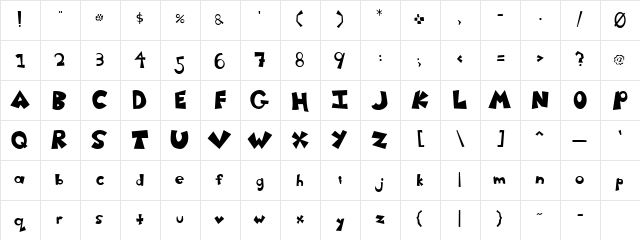
GMPokey Regular
Design Context for GMPokey Typeface
GMPokey is a composed and adaptable typeface that performs quietly and consistently across a wide range of design contexts.